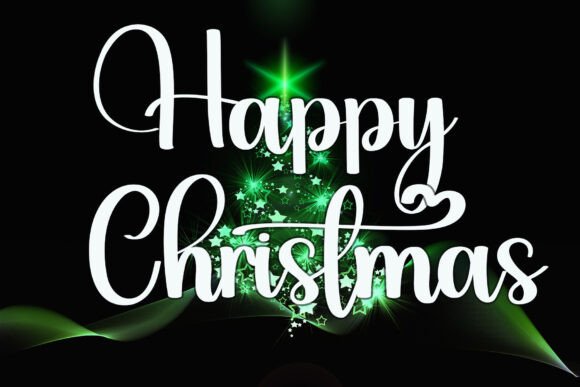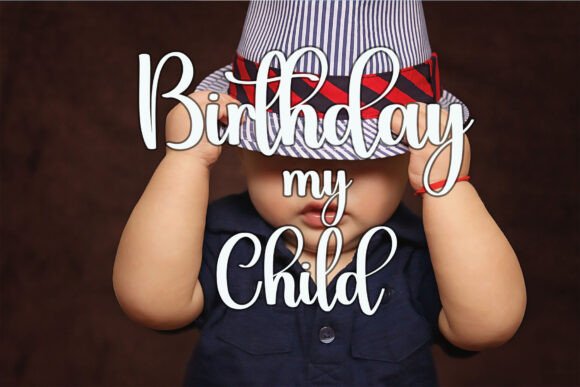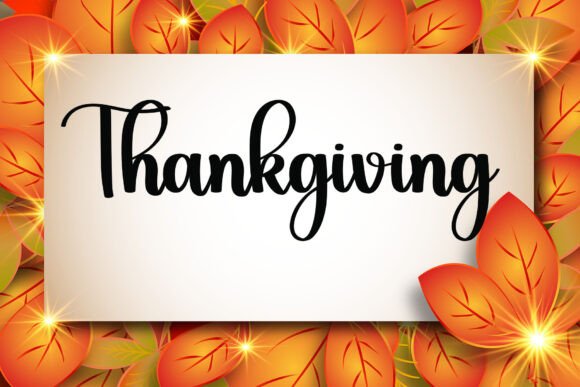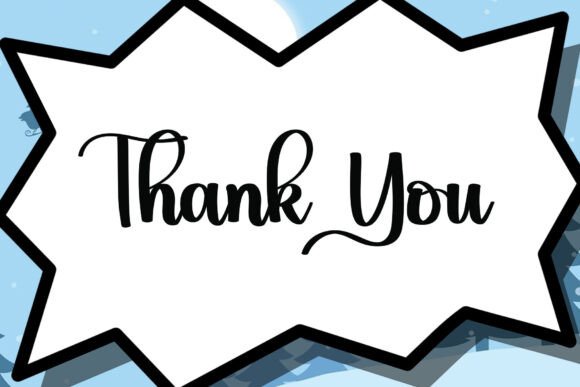
Introducing Black Santa Font: The Ultimate Choice for Creative Design Projects
Are you a designer or crafter looking for a unique and versatile font to elevate your creative projects? Look no further than the Black Santa Font. This classic and simple handwritten script is a game-changer for anyone seeking a stylish and effortless way to add personality to their designs.
What is Black Santa Font?
Black Santa Font is a beautifully crafted handwritten script that exudes a sense of randomness and freedom. Its simplicity and elegance make it an ideal choice for a wide range of design projects, from logotypes and headlines to corporate identities and brand designs.
Key Features of Black Santa Font
- Classic and Simple Design: Black Santa Font boasts a timeless and uncomplicated design that works well with various design styles.
- Handwritten Script: The font’s handwritten nature gives it a personal and organic feel, perfect for adding a touch of warmth to your designs.
- Random and Free Style: The font’s random and free style ensures that each letter and word has a unique character, making it perfect for creative projects.
- Versatile: Black Santa Font is suitable for a wide range of design projects, including logotype, headline font, corporate identity, brand identity, apparel industry, posters, music, movies, games, magazines, books, comics, cartoons, YouTube, Instagram, websites, and more.
Use Cases for Black Santa Font
Black Santa Font is an incredibly versatile font that can be used in various design projects. Here are some use cases to get you started:
- Logotype and Branding: Use Black Santa Font to create a unique and memorable logotype for your brand, adding a personal touch to your corporate identity.
- Headlines and Posters: The font’s bold and playful nature makes it perfect for headlines and posters, grabbing the attention of your audience and conveying your message.
- Apparel Industry: Black Santa Font is ideal for designing t-shirts, hoodies, and other apparel, adding a stylish and trendy touch to your products.
- Digital Media: Use the font in your YouTube videos, Instagram posts, and website designs to add a creative and artistic flair.
Why Choose Black Santa Font?
With so many fonts available, why choose Black Santa Font? Here are a few reasons why designers and crafters love this font:
- Easy to Read: Despite its creative and artistic nature, Black Santa Font is easy to read, making it perfect for body text and headlines.
- Unique and Distinctive: The font’s random and free style ensures that your designs stand out from the crowd, making it perfect for brands and designers seeking a unique identity.
- Highly Versatile: Black Santa Font works well with various design styles, making it a great addition to your font library.
Tips for Using Black Santa Font
To get the most out of Black Santa Font, here are some tips to keep in mind:
- Pair with Other Fonts: Experiment with pairing Black Santa Font with other fonts to create a unique and visually appealing design.
- Use in Combination with Images: The font’s creative nature makes it perfect for use in combination with images, adding a touch of personality to your designs.
- Experiment with Colors: Black Santa Font works well with various colors, so don’t be afraid to experiment and find the perfect color scheme for your design.
Black Santa Font is a classic and simple handwritten script that is perfect for creative designers and crafters. Its versatility, unique style, and ease of use make it an ideal choice for a wide range of design projects. Whether you’re looking to create a logotype, headline font, or simply add a touch of personality to your designs, Black Santa Font is the ultimate choice.